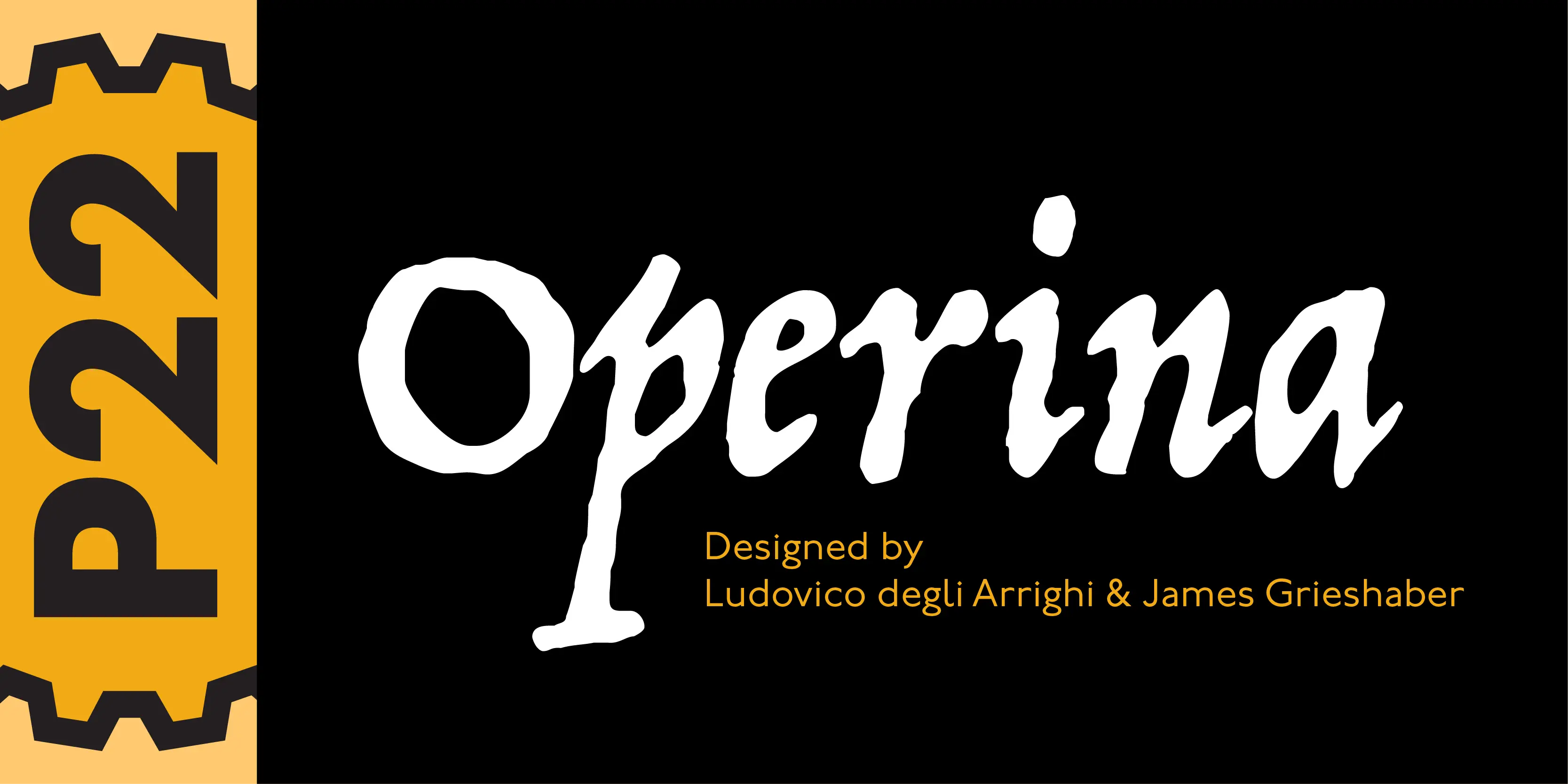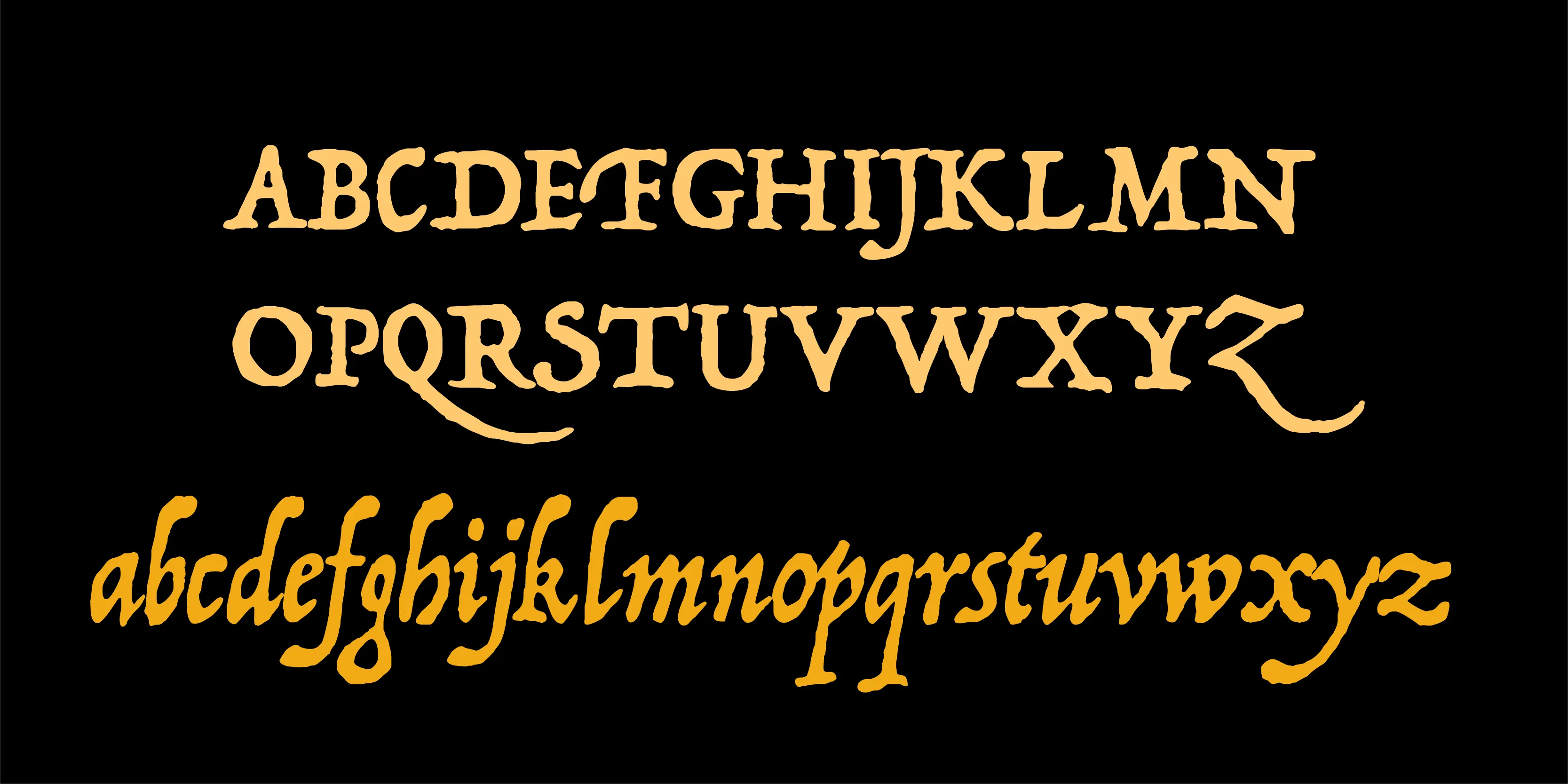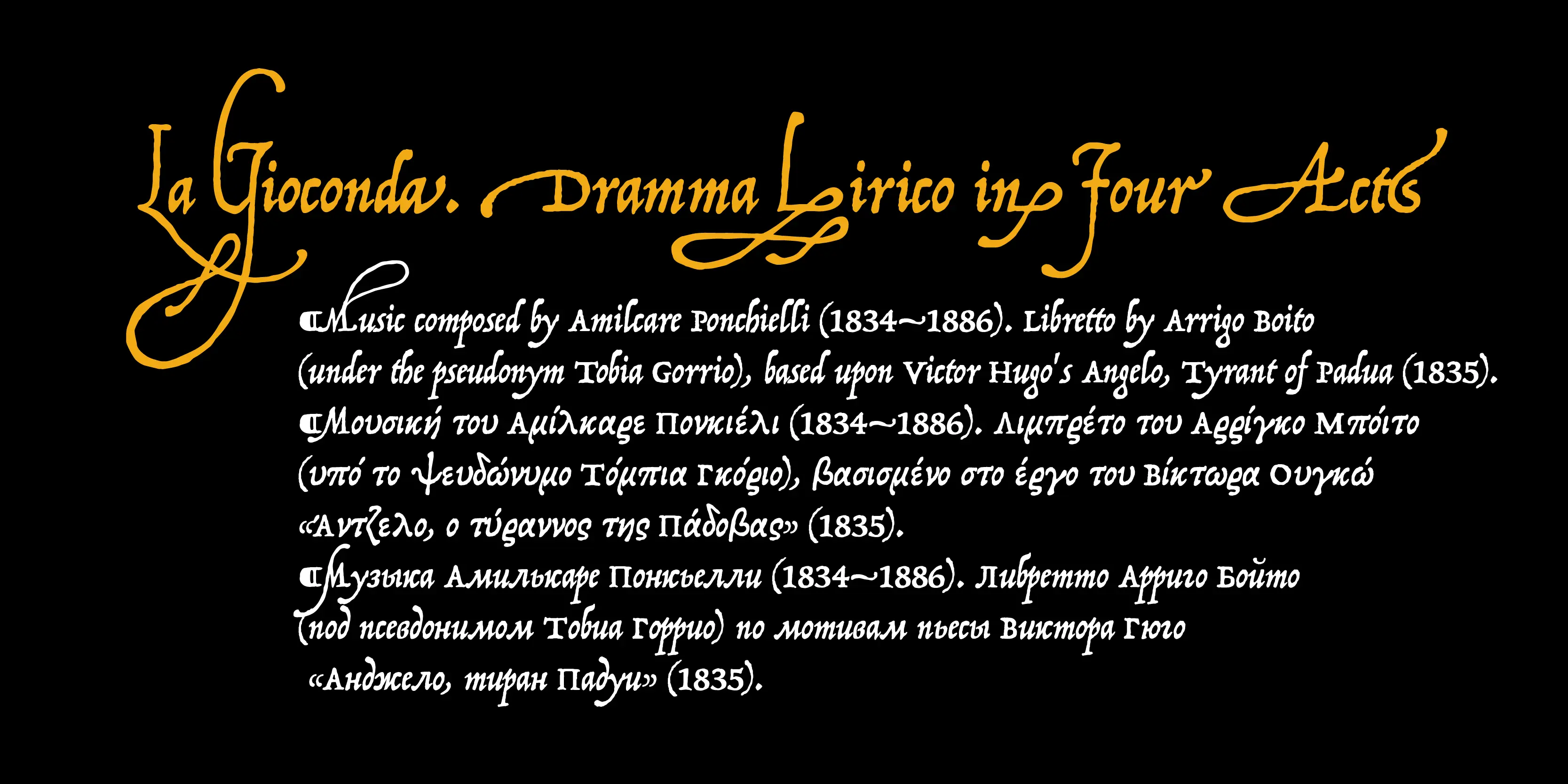
Operina Font
Operina
The sixteenth century calligrapher, Ludovico degli Arrighi, is revered as one of the finest calligraphers ever. His writing manual known as La Operina (Rome 1522), is still influential today. This set features three variations of Arrighi’s script that can be used interchangeably. Operina Pro contains over 1200 glyphs and includes all 3 Operina styles, plus several OpenType features including support for Cyrillic, Greek and Central European languages, all in one font.
• Belarusian
• Bulgarian
• Greek
• Macedonian
• Russian
• Serbian
• Ukrainian
• Uzbek
• Fractions
• Lining Numerals
• Old Style Numerals
• Ordinal Numerals
• Proportional Numerals
• Slashed Zero
• Small Capitals
• Superscript
• Swashes
• Tabular Numerals
• Titling Capitals